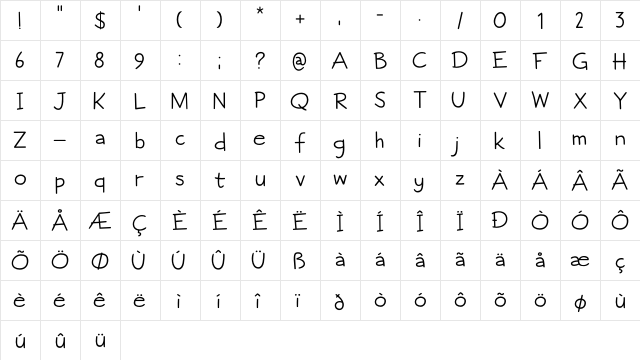
Fictional Friend DEMO Regular
| Foundry | David Kerkhoff |
| Designer | David Kerkhoff |
Design Context for Fictional Friend DEMO Typeface
Fictional Friend DEMO offers clean, dependable letterforms without strong stylistic allegiance, making it a practical choice for designers who need flexibility.